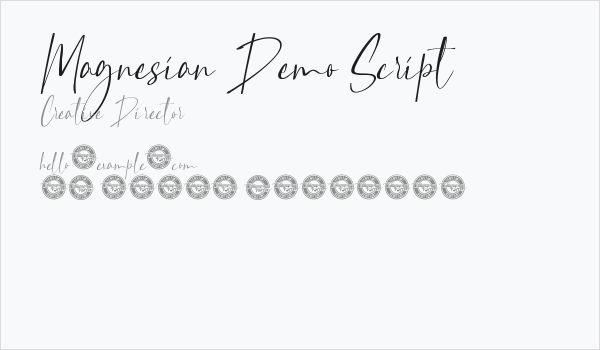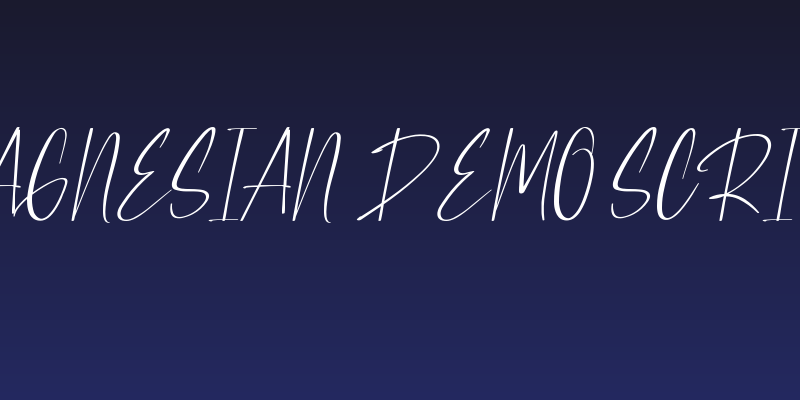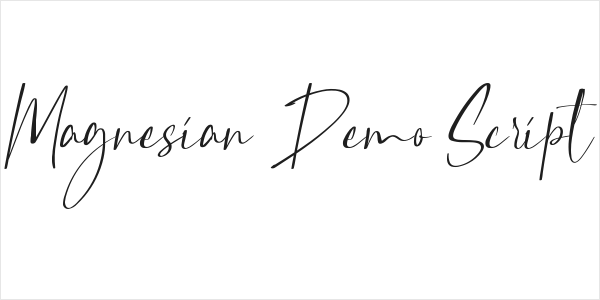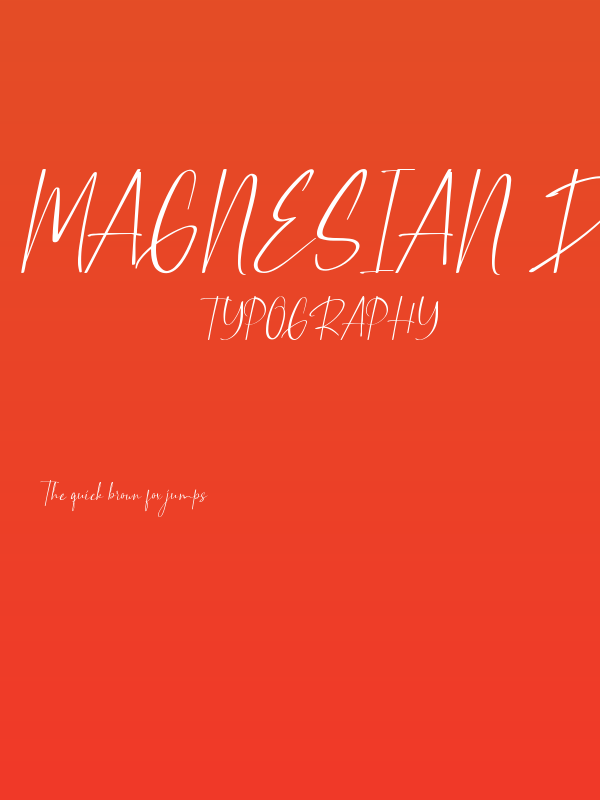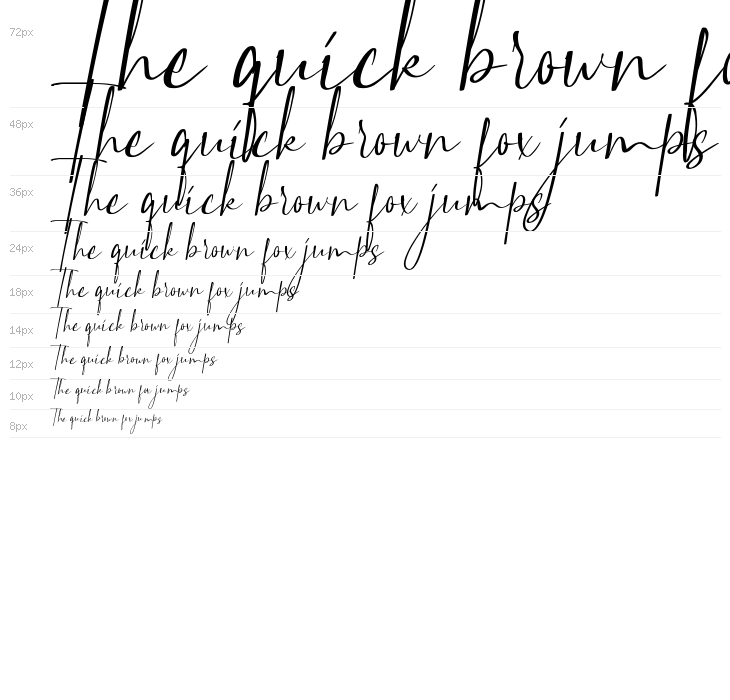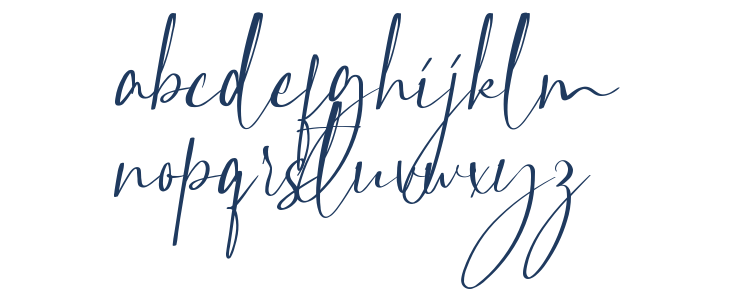
Magnesian Demo Script Font
Magnesian Demo Script Description
This font features a dynamic and fluid script style, characterized by its elegant and flowing letterforms. The uppercase letters are tall and slender, with a slight slant that adds a sense of motion and grace. The lowercase letters are more varied in height, with some characters extending below the baseline, creating a lively and energetic appearance. The strokes are smooth and continuous, giving the font a handwritten feel. The overall design is sophisticated and stylish, making it suitable for projects that require a personal touch or a sense of elegance.
| Overall Style | Elegant, Handwritten |